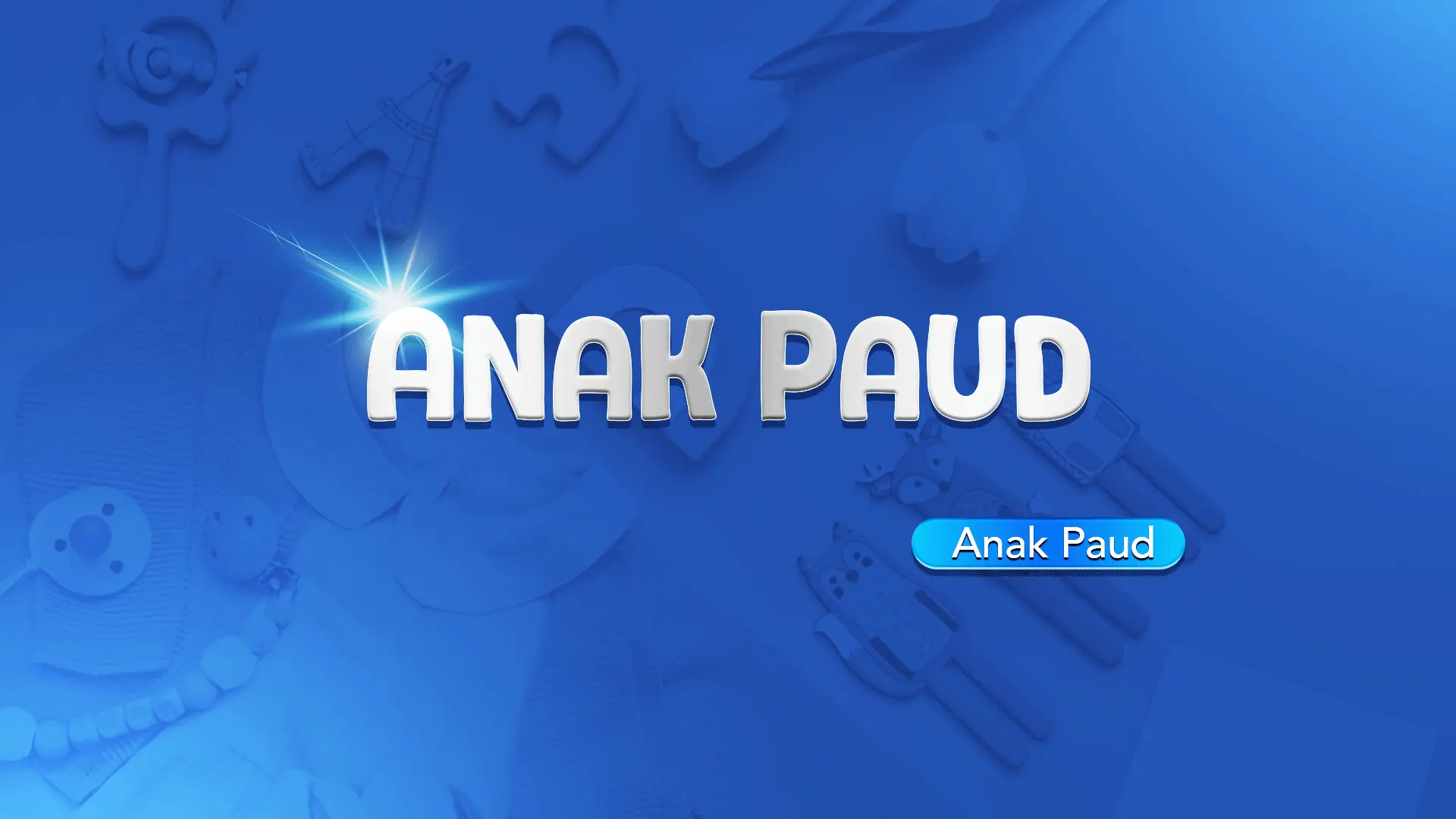
The Anak Paud font family may be ideal for you if you enjoy working on an artistic design project. The lively, expressive look of this typeface, which was created by Khurasan, makes it ideal for Worksheets and Activity Books, Flashcards, Alphabet Charts and Posters, School Logos, Children's Media, Flyers for PAUD Programs, Banners & Posters, Personalized items for kids and other light-hearted visual projects.
Regular, Regular are the two primary font styles of the Anak Paud font family. You may build dynamic, visually appealing text layouts with the distinct flair that each style offers. With crisp, readable lines and a relaxed tone.